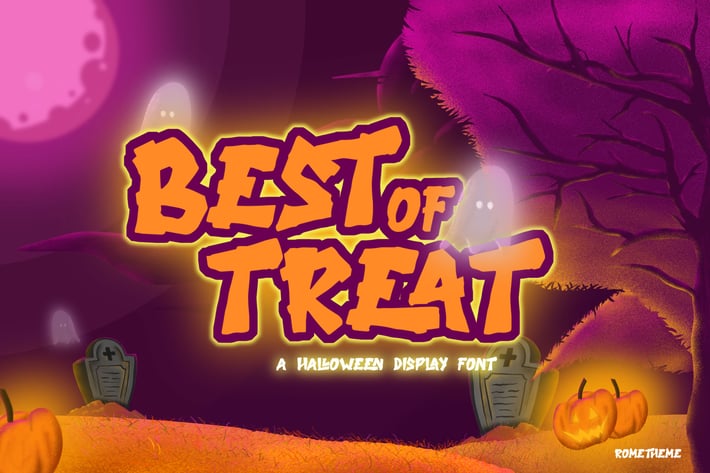
Best of Treat - Halloween Font
Best of Treat is a Handdrawn typeface with halloween bold style in every single letter. This font looks scary, spooky, halloween, and bold.
Best of Treat is the best choice for your professional design projects, including : poster design, t-shirt, headline, flyer, cd cover album, quotes, business card, branding, magazines, social media, advertisements, product designs, or something that need scary or halloween looks.